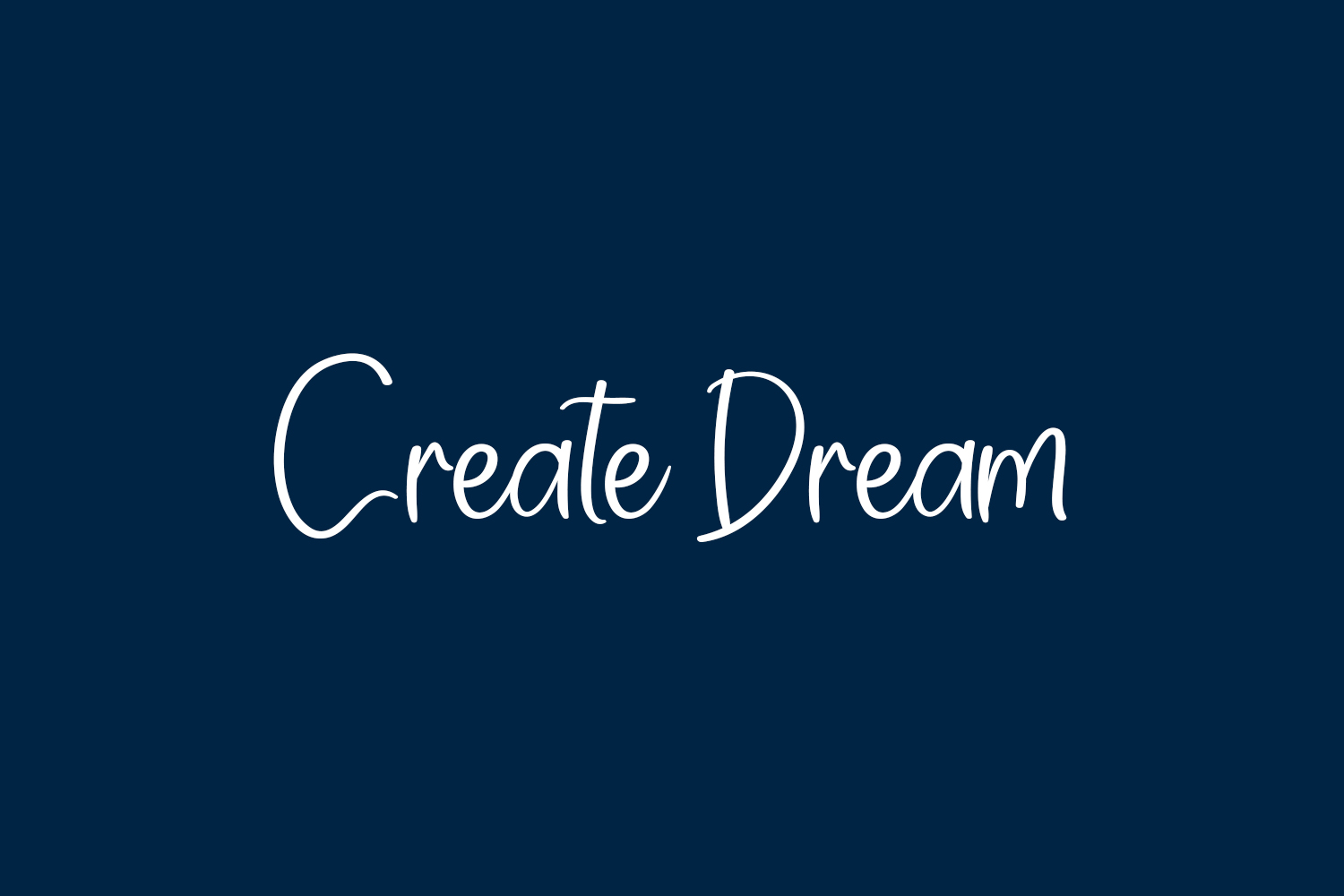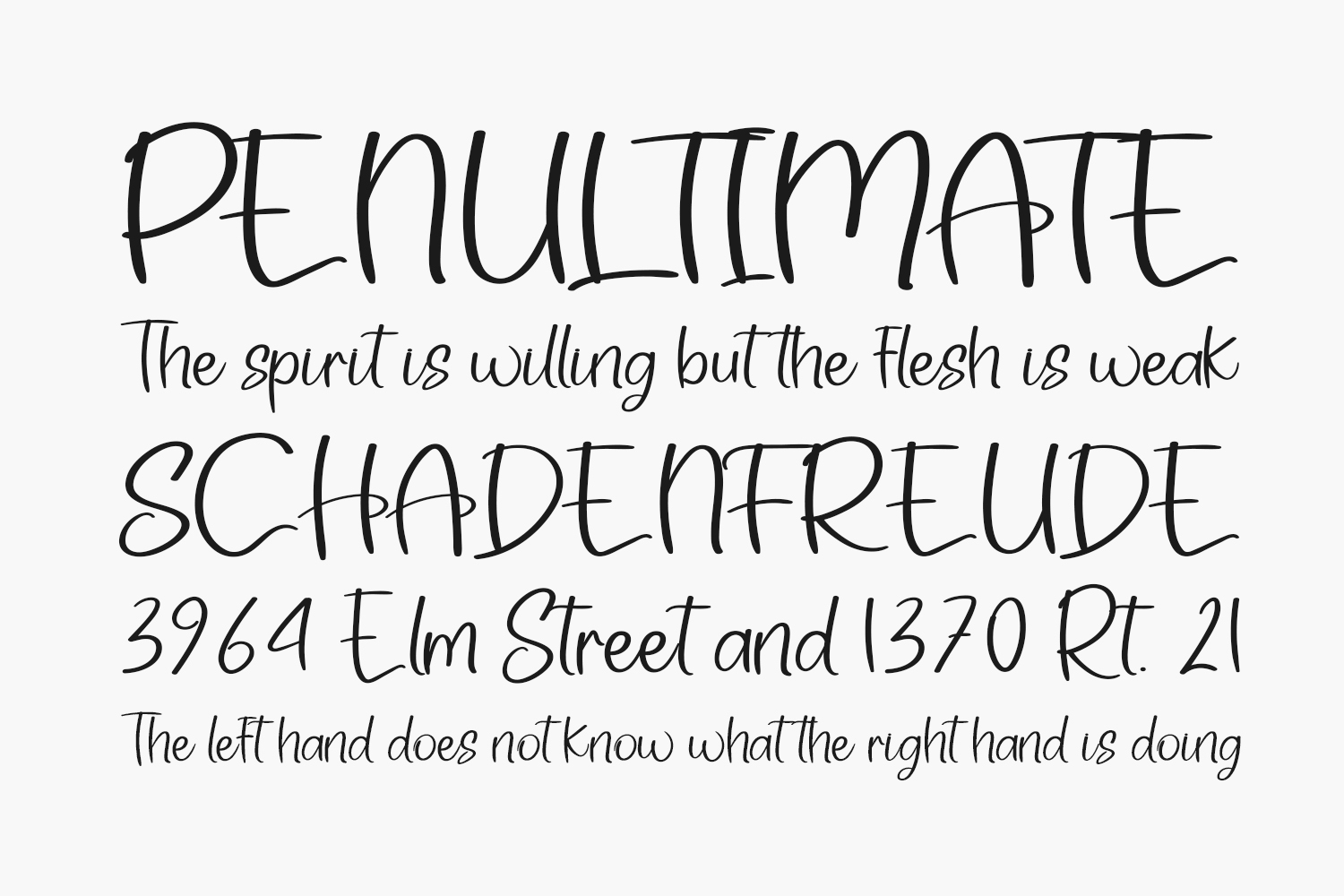
Create Dream Free Font is a tidy and exquisite handwritten font characterized by an elegant touch, ideal for your cherished projects. Embrace its remarkably distinct and timeless style, leveraging its potential to fashion breathtaking designs that captivate. Let Create Dream elevate your creative endeavors with its unique and sophisticated charm. Download the font for free if you need it for personal use or purchase the full version for commercial use.